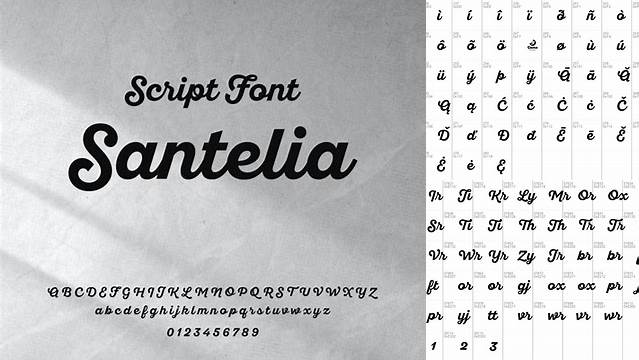
Santelia Script Alt Bold Font: A Fontspring Demo
Hey guys! Let's dive into the world of typography, shall we? Today, we're going to explore the Santelia Script Alt Bold font, specifically its demo available on Fontspring. This font is a real beauty, and we'll be taking a close look at what makes it tick, how you can use it, and why it might be the perfect choice for your next project. First, we'll unpack the different aspects of this amazing font, discussing everything from its design and features to its potential applications. We'll then get into a detailed breakdown of Fontspring, the platform where you can find this gem, and how you can get your hands on a demo version to try it out for yourself. Ready to get started? Let's roll!
What is Santelia Script Alt Bold Font?
So, what exactly is Santelia Script Alt Bold? Well, it's a stylish and eye-catching script font designed with a bold flair. The 'Alt' in its name suggests alternative glyphs, meaning that the font provides variations of its characters, allowing for more creative and customized lettering. It's a versatile font, ideal for a variety of design projects that require elegance, personality, and a touch of sophistication. The bold weight gives it a strong presence, making it suitable for both headlines and body text, depending on the context. Santelia Script Alt Bold strikes a great balance between legibility and aesthetic appeal. This is super important because, let's be honest, if a font looks amazing but is hard to read, it kinda defeats the purpose, right? Its flowing strokes and distinct letterforms make it stand out, making it perfect for branding, invitations, posters, and any design where you want to make a memorable impression. The font's curves and details also give it a handcrafted, personal feel, which can resonate well with audiences. Ultimately, Santelia Script Alt Bold is more than just a font; it's a tool to help you tell a story and create visual magic. It's the kind of font that grabs your attention and makes you want to know more. That's the power of a well-designed script font like Santelia Script Alt Bold.
Exploring the Design and Features of Santelia Script Alt Bold
Let's get down to the nitty-gritty and dissect the design and features of this awesome font. The first thing that will probably catch your eye is its elegant script style. Think of it as a dance between the letters, with each one flowing seamlessly into the next. The bold weight means each character has a strong presence, making it easily readable, even at larger sizes. The 'Alt' in the name is a crucial detail; it hints at a range of alternate glyphs. Now, what are glyphs, you might ask? They are different variations of the same letter. This means, for example, that the letter 'a' might have multiple forms, allowing you to customize the look and feel of your text. This feature is super important for designers and creatives because it provides additional flexibility and helps create unique and personalized designs. The use of alternates can also significantly improve the overall appearance, giving a more natural and handwritten feel. The overall design of Santelia Script Alt Bold also usually includes specific features like ligatures, which are connected characters that improve the flow and aesthetic of words. All these features make Santelia Script Alt Bold such a great choice. Furthermore, many script fonts, including this one, tend to have a slightly slanted or italicized look, adding a sense of movement and dynamism. This slant can contribute to the font's overall elegance and make your designs more visually interesting. With all of these design features, it is also likely that Santelia Script Alt Bold is crafted to ensure legibility, aiming for a balance between beauty and practicality.
Understanding the Benefits of Using a Script Alt Bold Font
Using a script alt bold font like Santelia Script Alt Bold offers many benefits, especially when you want to add a touch of elegance, personality, and visual interest to your designs. The most apparent benefit is its aesthetic appeal. Script fonts, in general, have a sophisticated look, instantly elevating the design and making it more attractive. The bold weight of Santelia Script adds strength, making the font more readable and noticeable, especially in headlines and titles. The alternative glyphs offer an element of uniqueness and customization, ensuring your designs stand out from the crowd. This allows for a more personalized feel and prevents your design from looking generic. They also help in achieving a natural, handcrafted aesthetic, which is particularly beneficial when you're trying to connect with your audience on a personal level. Another key benefit is its versatility. Script fonts are very adaptable and can be used in a wide range of design applications, from logos and branding to invitations and social media graphics. The font's legibility also helps with readability, with its bold style ensuring it is easy to read at various sizes. It can also evoke specific emotions. Script fonts often have a romantic, classy, or artistic feel, making them ideal for designs that aim to convey these sentiments. The flowing, handwritten appearance of the font creates a sense of warmth and approachability. Moreover, script fonts are an excellent way to make your designs more memorable. Due to their distinctive nature, they help your designs stand out and are more likely to leave a lasting impression on the viewer.
Ideal Applications and Usage of Santelia Script Alt Bold
Now, let's discuss the ideal applications and usage of Santelia Script Alt Bold. Because of its beautiful design, it works well in any design that requires elegance and sophistication. If you are working on branding projects, this font is a great choice for logos, business cards, and marketing materials. It can help create a unique and memorable brand identity that resonates with your target audience. This font is perfect for designing invitations and stationery. Its elegant appearance adds a touch of sophistication to wedding invitations, greeting cards, and other special event announcements. The flowing script creates a sense of personalization, making your invitations feel extra special. For those working on packaging design, this font adds a touch of class to product labels, making them more attractive and eye-catching. This is particularly effective for products aimed at luxury markets or those that emphasize a handcrafted feel. When it comes to creating posters and social media graphics, Santelia Script Alt Bold can instantly draw the eye and convey your message effectively. Use it for quotes, promotional text, and headlines to grab attention. The bold weight ensures readability while retaining the font's stylish appeal. This font is also a great option for adding a touch of personality to your website. Use it in headings, navigation menus, or call-to-action buttons to make your website more visually appealing and engaging. The font will ensure that the website feels warm and inviting. Finally, Santelia Script Alt Bold is an excellent choice for any design project where you want to infuse a touch of elegance, personality, and visual interest. Its versatility and striking appearance make it a perfect asset for a variety of projects.
Differences Between Bold and Regular Fonts
Let's compare Santelia Script Alt Bold with its regular weight counterparts. The primary difference between a bold and a regular font lies in the thickness of the strokes of the characters. A bold font has thicker strokes, making the letters appear heavier and more prominent. This is a major factor influencing readability. Bold fonts are often more legible, especially at smaller sizes or when used in headings. It ensures that the letters stand out more and are easier for the eye to recognize, while regular fonts have thinner strokes, making them look more delicate and refined. The bolder style grabs attention. Bold fonts grab the reader's attention and make text stand out more. They are effective for titles, headlines, or any text that you want to emphasize. In contrast, regular fonts may look more subtle and less attention-grabbing. It also affects the overall visual appearance. Bold fonts have a more assertive and powerful appearance, ideal for conveying strength, confidence, or importance. Regular fonts can appear softer and more refined, and are more suitable for creating a gentle or elegant vibe. In terms of usage, bold fonts are more suitable for headings, subheadings, or other elements that need to be highlighted. It is crucial for conveying the key information or drawing the reader's attention. Regular fonts are often ideal for body text or longer paragraphs, which allows for a more harmonious and easy-to-read experience. The choice between bold and regular fonts depends on the design objective and the message you want to convey. For example, if you wish to grab the viewer's attention and emphasize key content, choosing the bold option will be the best choice. However, if you want to maintain a sense of subtlety and elegance, the regular option may be more appropriate. Bold is also great for adding emphasis to key words, while still maintaining a sense of flow.
Tips for Using Santelia Script Alt Bold Effectively
Want to make the most of Santelia Script Alt Bold? Here's some insider tips to make the magic happen. First, consider the context of your design. Script fonts are great, but they aren't a one-size-fits-all solution. Ensure it fits your overall theme and message. Ask yourself: Does it align with your brand's personality? Second, use the font sparingly. While it's beautiful, overusing it can make your design look cluttered and overwhelming. Try it for headlines, titles, and short, impactful phrases. Also, ensure readability. Since script fonts can be intricate, make sure the font size and spacing are just right. Always ensure the font is legible, especially at smaller sizes. Third, pay attention to kerning and leading. Kerning is the space between individual letters, while leading is the space between lines of text. Adjusting these settings can significantly improve the font's overall appearance and readability. Experiment with different kerning and leading settings to achieve the perfect balance and flow. The fourth tip is to try pairing this font with other fonts. Script fonts often complement other styles, such as sans-serif or serif fonts. Pairing the script with a more neutral font can create a well-balanced and visually appealing design. Fifth, explore the alternate glyphs. Remember those variations of letters we discussed earlier? These alternate glyphs can add a unique touch to your design. Play around with them to create personalized, handcrafted lettering. And finally, always test your design on different devices and platforms. Make sure your font looks great on all devices before you get started.
Comparing Santelia Script Alt Bold with Other Script Fonts
Let's compare Santelia Script Alt Bold to other script fonts to better understand how it stands out. There are many script fonts, each with a unique style. The classic script fonts often have a traditional, elegant look. They're usually characterized by flowing lines, connecting strokes, and a calligraphic feel. Think of fonts like